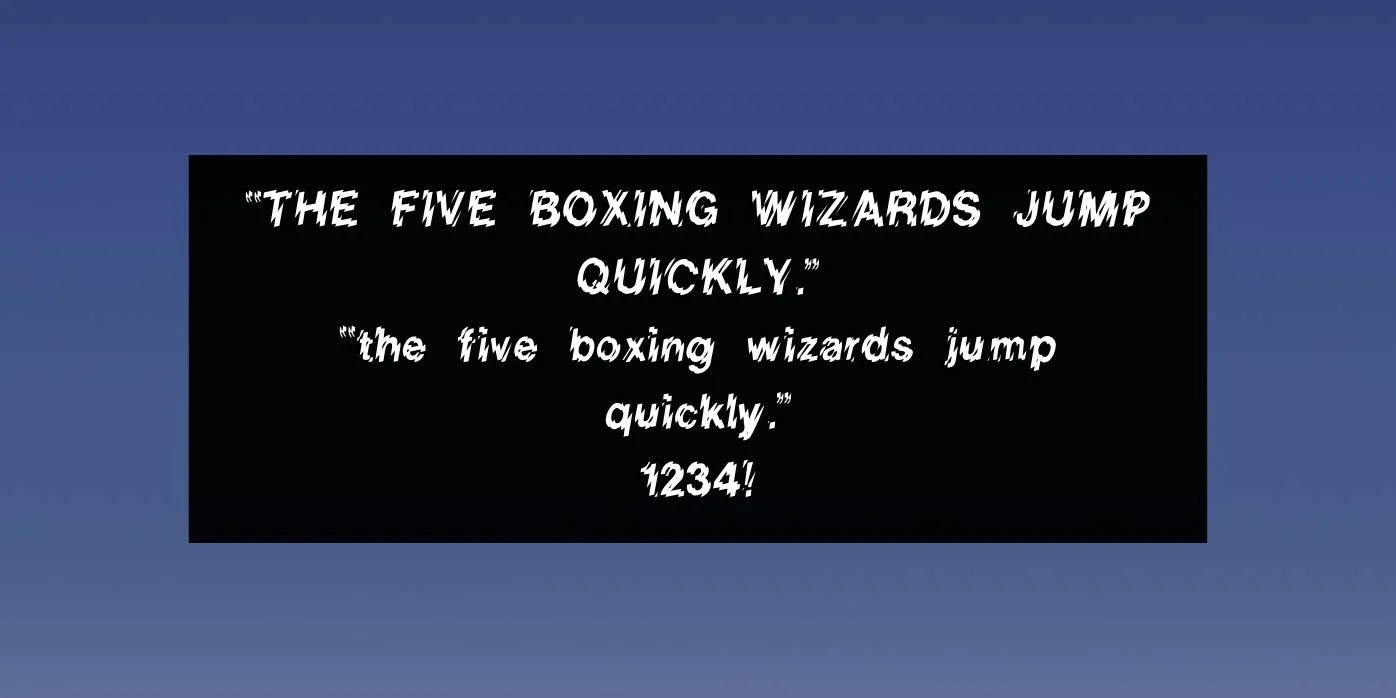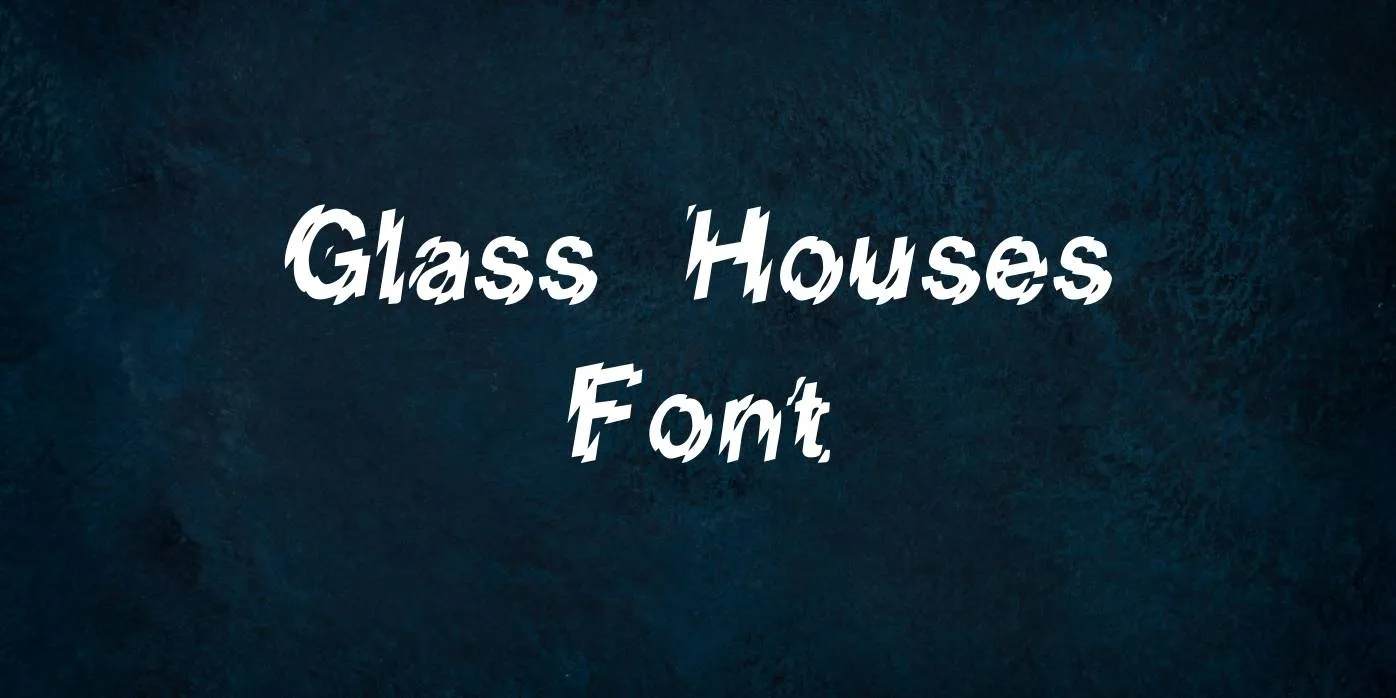
Glass House Font
Glass House Font are the culmination text style for all your fun plans. The text style subfamily is Customary. The text style was planned by Computerized Realistic Labs and is free for individual use. The text style fashion may shift depending on the letters chosen.
A few textual styles don’t acknowledge extraordinary characters or were made for a one-off activity. Through the image below, you’ll be able to see the concept of each letter. This typeface is very similar to the dirty pop font. Moreover, you’ll check the typography of all the letters underneath or take the test online sometime recently downloading the font.
The letters will be the same after being introduced in your working framework, either for seeing or for printing. You can utilize the Glass Houses to form curiously plans, covers, shop and store names, and logos. Also, the Glass Houses textual style has culminated for branding ventures, houseware plans, item bundling, or essentially as a la mode content overlay on any foundation picture. Glass House Font View Font Information Edit NameGlass House Font DesignerComputerized Realistic Labs StyleFancy TypeOTF,TTF LicenseFree for personal use Download Glass House Font Glass Houses are the unique text style for all your fun plans.